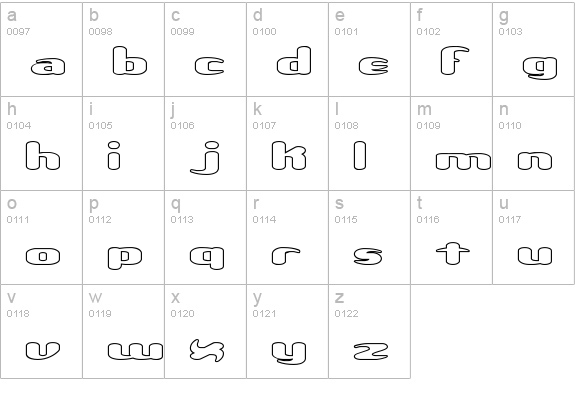
Unexplored Galaxies WO -BRK- font is a captivating and enchanting typeface that will transport you to the depths of uncharted galaxies. With its unique and futuristic design, this font captures the essence of the unknown and the limitless possibilities that lie beyond our reach. The letters of Unexplored Galaxies WO -BRK- font are beautifully crafted, with intricate details and a sense of movement that echoes the vastness of space. Each curve and line is meticulously designed to create a harmonious balance between elegance and otherworldly charm. This font is perfect for any project that seeks to capture the imagination and push the boundaries of creativity. Whether you are designing a science fiction book cover, a futuristic poster, or a cosmic-themed website, Unexplored Galaxies WO -BRK- font will add a touch of mystique and wonder. And the best part is, Unexplored Galaxies WO -BRK- font is freely available to download at FontsMarket.com. You can unleash your creativity without any constraints, as this font allows you to explore new horizons without any limitations. It is the perfect companion for designers, writers, and dreamers who dare to venture into unexplored territories. So, immerse yourself in the beauty and intrigue of Unexplored Galaxies WO -BRK- font. Let it guide you on a journey through the vast expanse of the unknown, where imagination knows no bounds. Download it for free at FontsMarket.com and embark on a cosmic adventure unlike any other.